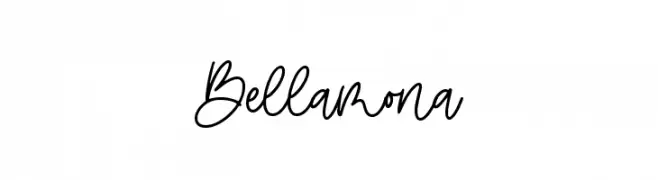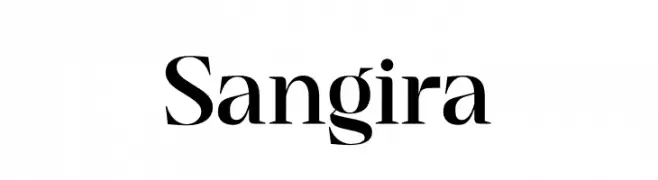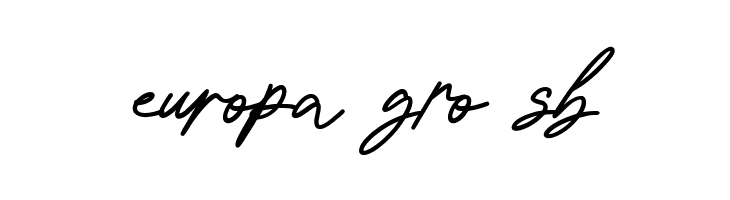
A lively, flowing script font with an elegant handwritten style.
A sleek, geometric font with clean lines and a modern aesthetic.
A delicate and flowing script font with elegant, elongated letterforms.
A bold slab serif font with a vintage yet modern appeal, ideal for headlines.
An elegant script font with flowing cursive letters and high contrast strokes.
A dynamic handwritten font with fluid, expressive letterforms.
A bold, high-contrast font with elegant and dramatic strokes.
A fluid and elegant script font with smooth, flowing lines.
An elegant, flowing script font with smooth, cursive strokes and graceful curves.
A modern, high-contrast font with elegant and sophisticated styling.